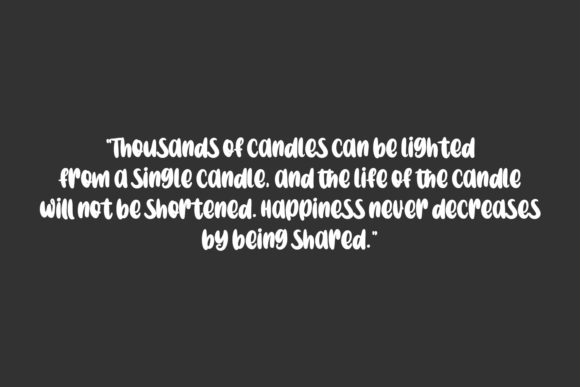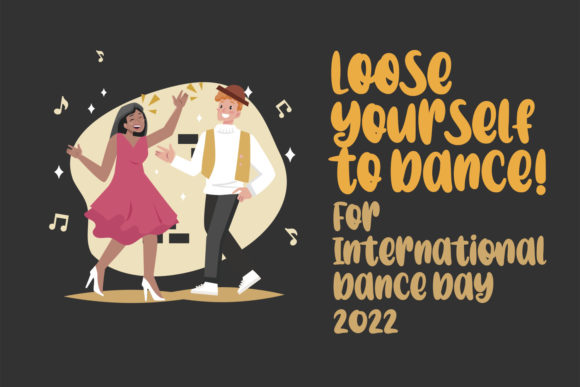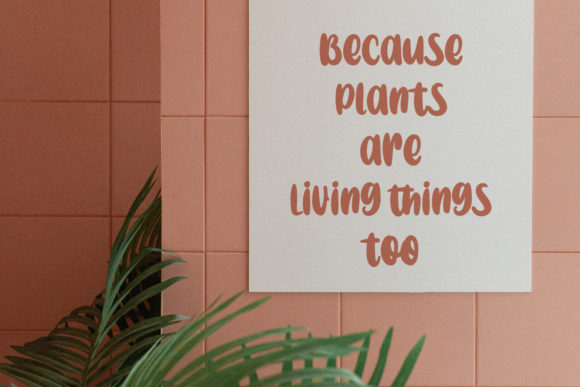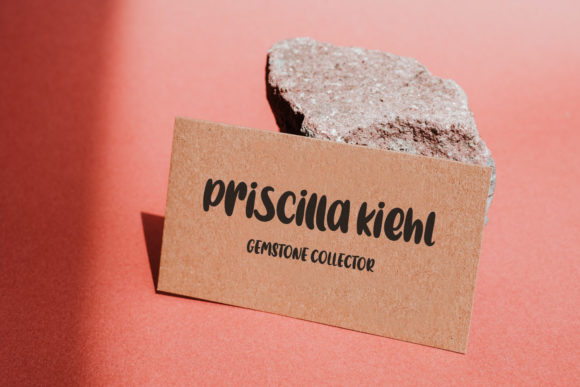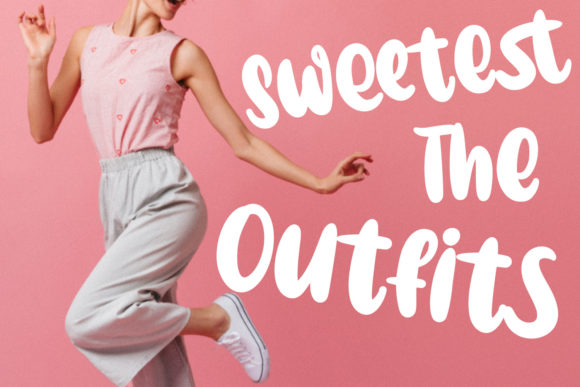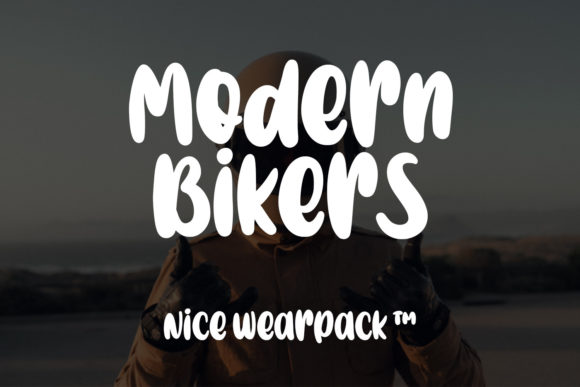
Caberolla Font: The Fun and Friendly Display Font for Your Creative Projects
Are you looking for a font that can add a touch of joy and playfulness to your designs? Look no further than Caberolla Font! This fun, chunky lettered, and friendly display font is perfect for a wide range of creative projects, from cartoon-related designs and children’s games to quotes, titles, brand names, book covers, posters, and more.
What Makes Caberolla Font So Special?
Caberolla Font is a unique and eye-catching font that is sure to grab attention. Its chunky letters and friendly vibe make it perfect for designs that require a playful and approachable feel. Whether you’re creating a children’s book, a cartoon, or a poster, Caberolla Font is a great choice. Its bold and fun design ensures that your text will stand out and leave a lasting impression on your audience.
Key Features of Caberolla Font
- Fun and playful design: Caberolla Font has a unique and playful design that is sure to add a touch of joy to your creations.
- Chunky letters: The font’s chunky letters make it perfect for designs that require a bold and eye-catching text.
- Friendly vibe: Caberolla Font has a friendly and approachable vibe that makes it perfect for designs that require a warm and welcoming feel.
- Versatile: This font is versatile and can be used for a wide range of creative projects, from children’s games to posters and book covers.
Use Cases for Caberolla Font
Caberolla Font is a versatile font that can be used for a wide range of creative projects. Here are some use cases where this font shines:
- Cartoon-related designs: Caberolla Font is perfect for cartoon-related designs, such as character names, titles, and quotes.
- Children’s games: The font’s playful design makes it perfect for children’s games, such as puzzles, quizzes, and activity sheets.
- Quotes and titles: Caberolla Font is a great choice for quotes and titles that require a bold and eye-catching text.
- Brand names: The font’s unique design makes it perfect for brand names that require a memorable and distinctive text.
- Book covers: Caberolla Font can be used for book covers that require a playful and eye-catching design.
- Posters: The font’s bold design makes it perfect for posters that require a attention-grabbing text.
Why Designers and Crafters Love Caberolla Font
Designers and crafters love Caberolla Font for its unique and playful design. Here are some reasons why:
- Easy to read: Despite its chunky design, Caberolla Font is easy to read, making it perfect for designs that require a clear and legible text.
- Customizable: The font’s design makes it easy to customize and modify to fit your specific needs.
- Time-saving: Caberolla Font is a pre-designed font that saves you time and effort in creating your own font from scratch.
- High-quality design: The font’s high-quality design ensures that your creations look professional and polished.
In conclusion, Caberolla Font is a fun, chunky lettered, and friendly display font that is perfect for a wide range of creative projects. Its unique design, versatility, and ease of use make it a great choice for designers and crafters. Whether you’re creating a children’s book, a cartoon, or a poster, Caberolla Font is sure to add a touch of joy and playfulness to your designs.